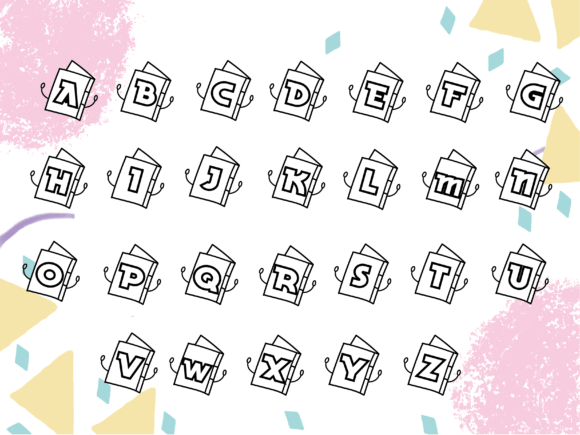
Unleash Your Creativity with Book Doodles Font
Have you ever sat down with a blank sheet of paper and a blank mind, only to be inspired by the simplest doodles? For many creatives, this moment is the spark that sets off a chain reaction of imagination and innovation. Whether you’re a seasoned designer or a hobbyist, the joy of creating something new and unique is what drives us to keep pushing boundaries.
Enter the Book Doodles Font, a delightful decorative font that’s perfect for bringing your ideas to life. With its friendly, approachable vibe, this font is ideal for a wide range of designs, from stickers and posters to planners and more. By incorporating Book Doodles Font into your projects, you can add a touch of whimsy and personality that sets your work apart from the rest.
For designers, Book Doodles Font is a valuable addition to any toolkit, offering a unique and versatile way to express yourself and connect with your audience. Whether you’re looking to create something playful, elegant, or simply eye-catching, this font is sure to inspire and delight.
Key Features of Book Doodles Font
- Font Style: A whimsical, hand-drawn font with a vintage feel, perfect for creating a unique and playful look.
- Unique Characteristics: Features a mix of uppercase and lowercase letters, numbers, and special characters, with intricate details and flourishes.
Book Doodles Font Review
I recently had the chance to work with the Book Doodles Font, and I’m excited to share my honest thoughts with you. Here’s what I think works well:
- ✨ Unique and playful style: Book Doodles Font has a charming, hand-drawn feel that’s perfect for creating eye-catching graphics and illustrations.
- ✨ Wide range of characters: The font includes a comprehensive set of characters, including uppercase and lowercase letters, numbers, and punctuation marks.
- ✨ Great for creative projects: Book Doodles Font is ideal for designers who want to add a touch of whimsy and personality to their work.
- ⚠️ Limited font sizes: The font doesn’t work well at very small or very large sizes, which can make it difficult to use in certain situations.
- ⚠️ Not suitable for body text: Due to its playful style, Book Doodles Font is best used for headlines, titles, and other design elements, rather than body text.
Overall, I think Book Doodles Font is a great choice for designers who want to add some personality to their work. While it has some limitations, its unique style and wide range of characters make it a valuable addition to any design library.
Getting the Most Out of Book Doodles Font
Book Doodles Font is perfect for adding a whimsical touch to your designs. To get the most out of it, try combining it with other fonts and graphics to create a unique look.
– Creating a vintage-inspired logo
– Designing a children’s book or educational material
– Adding a playful touch to a wedding invitation or party decorations